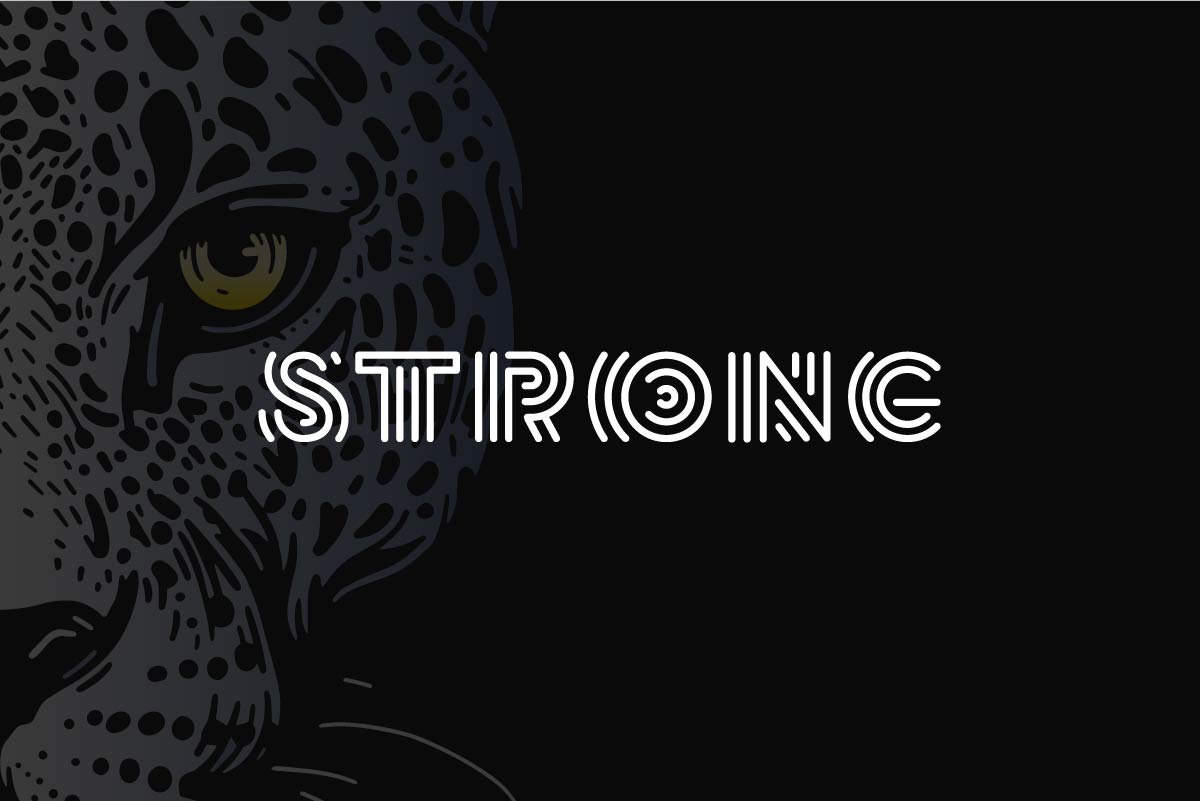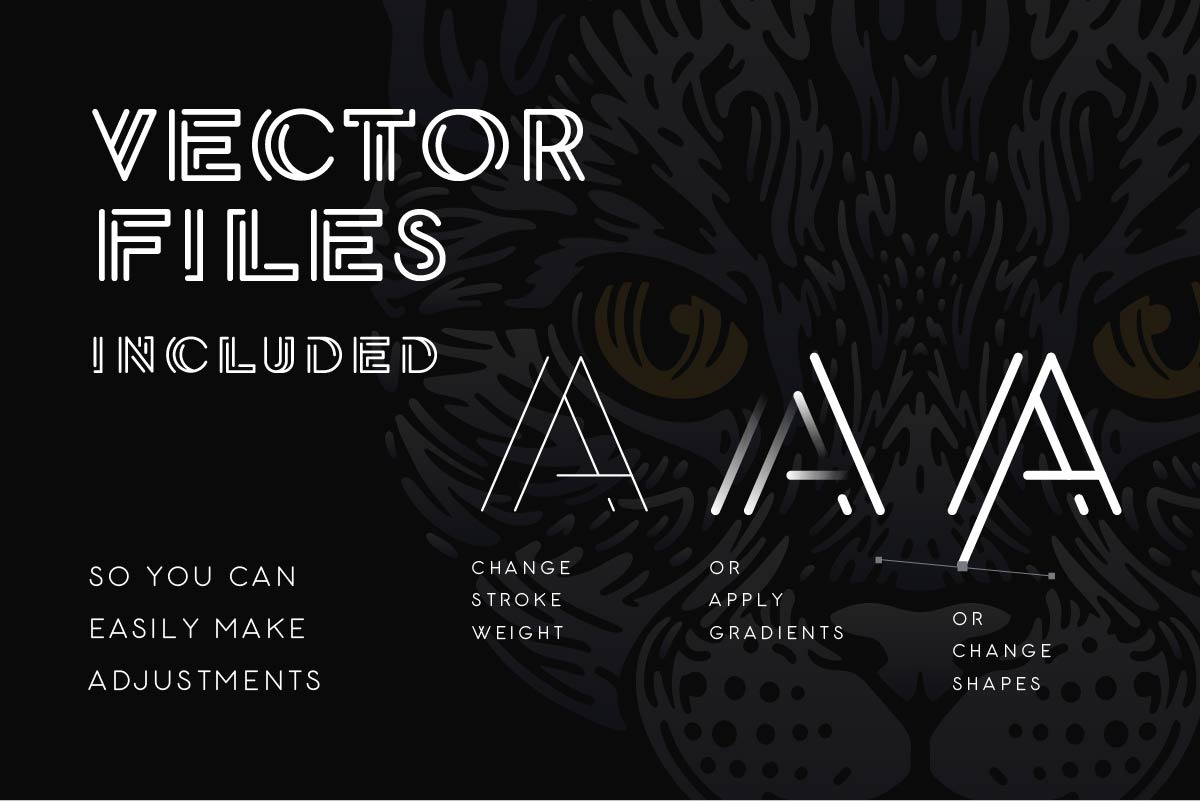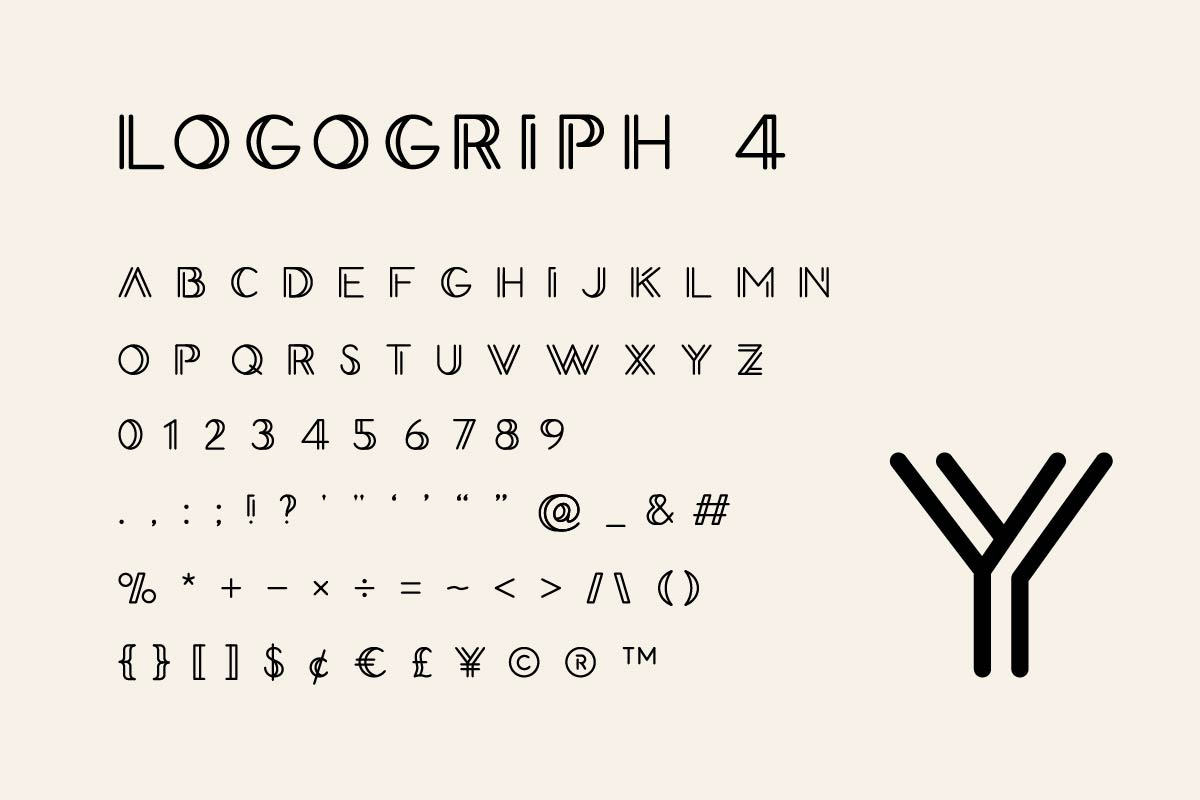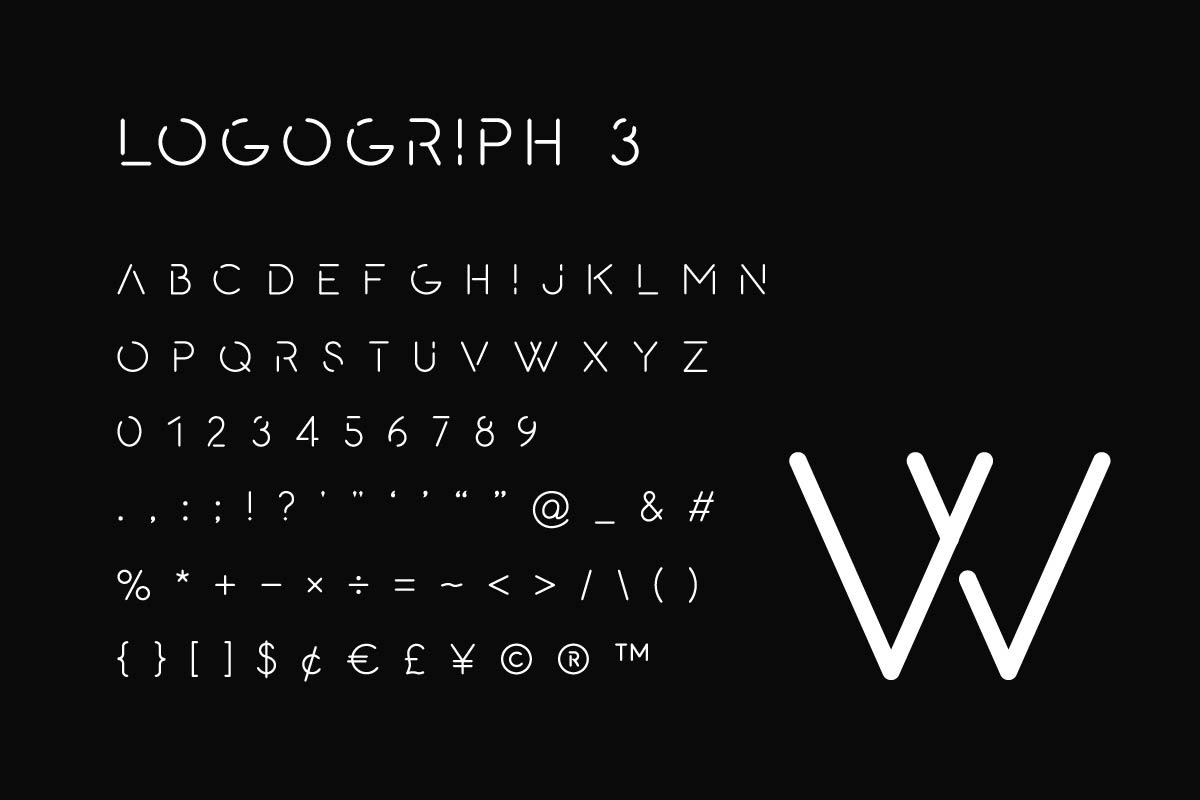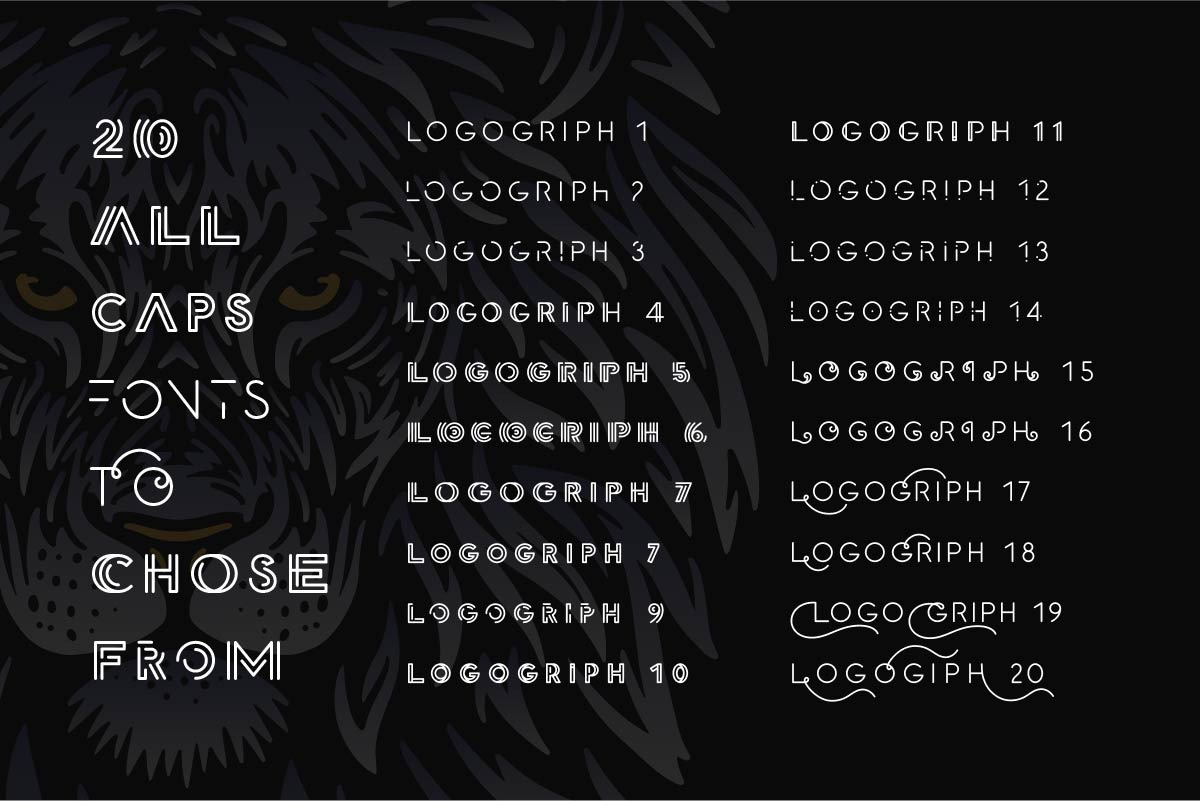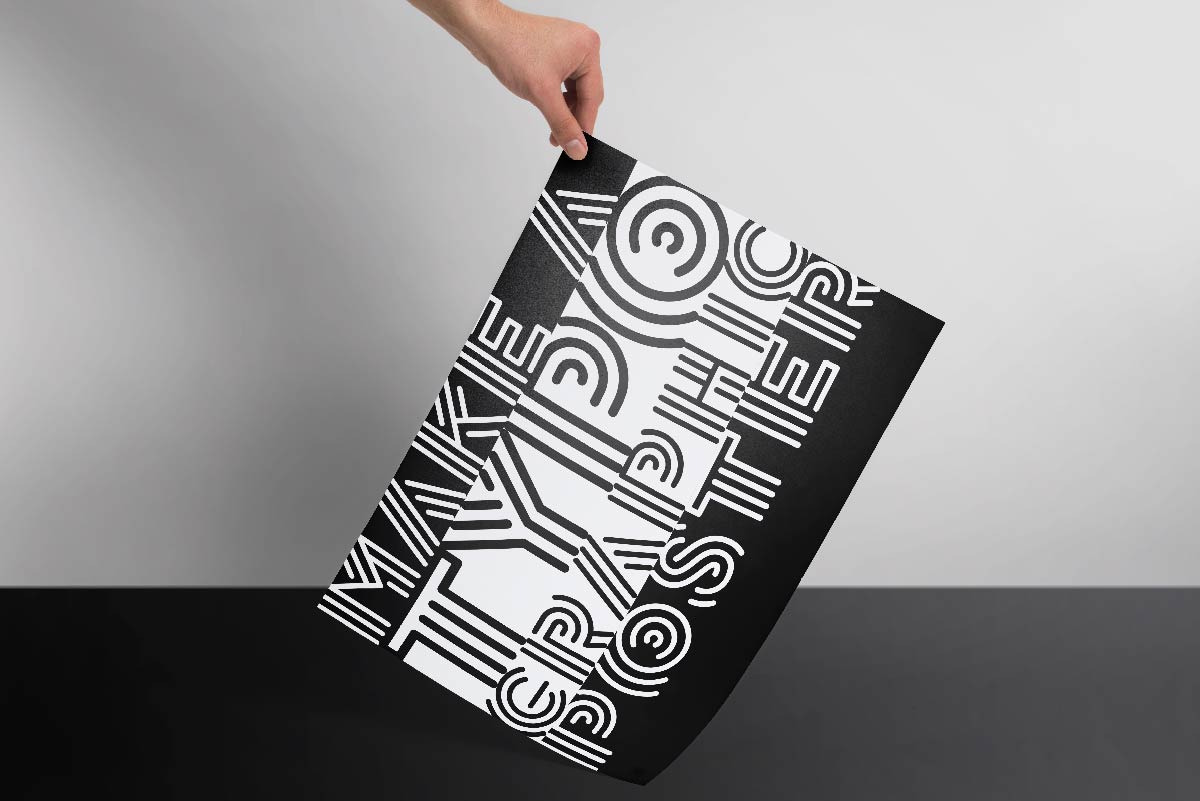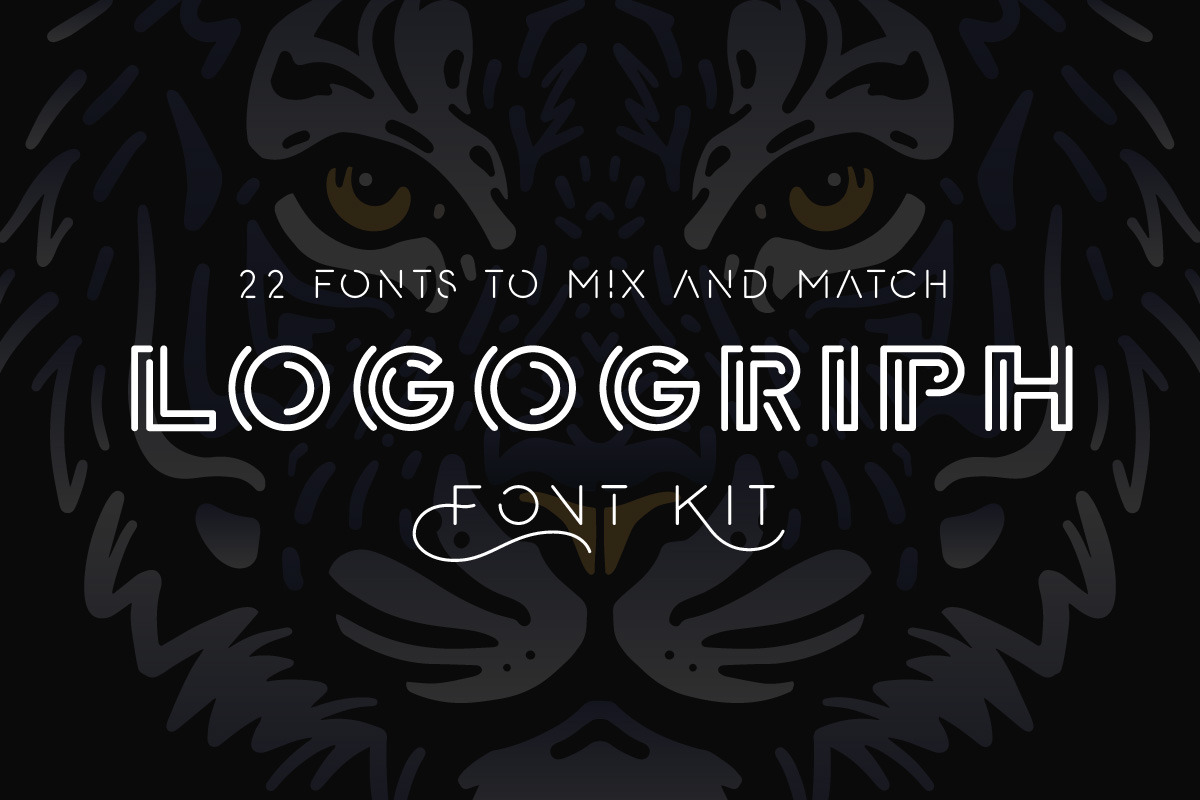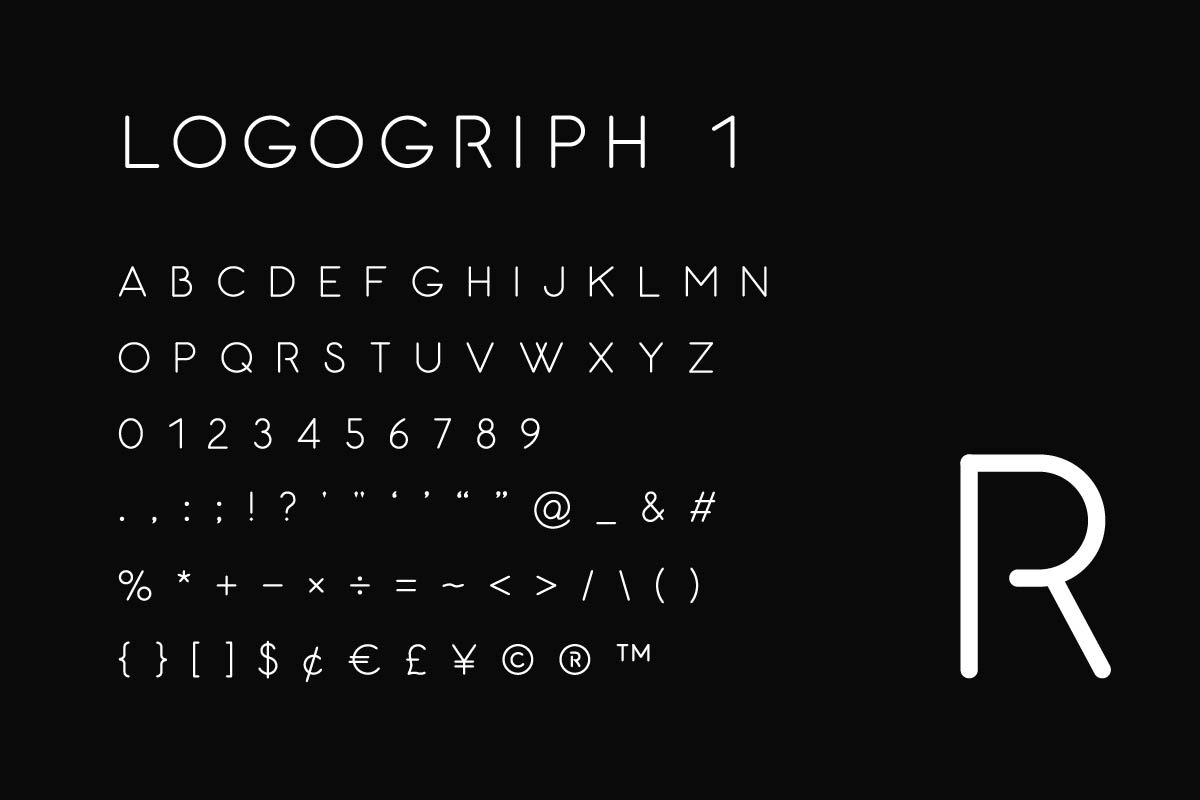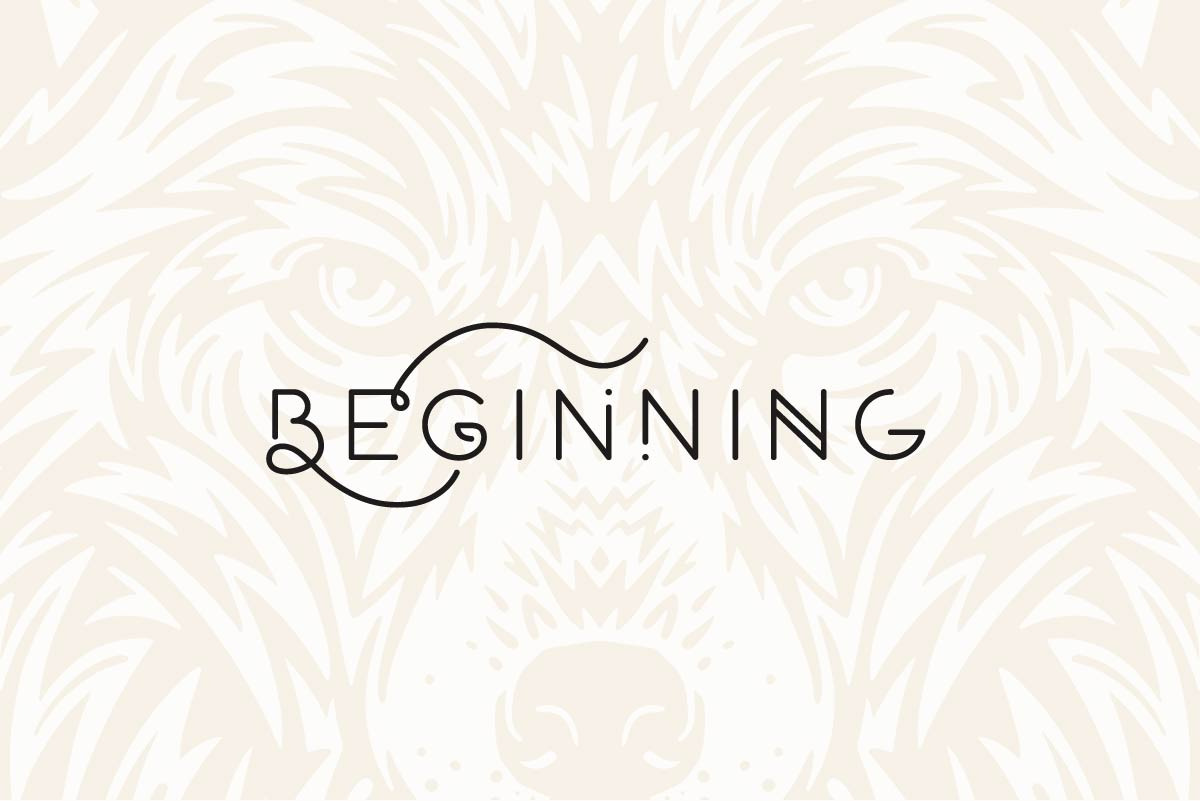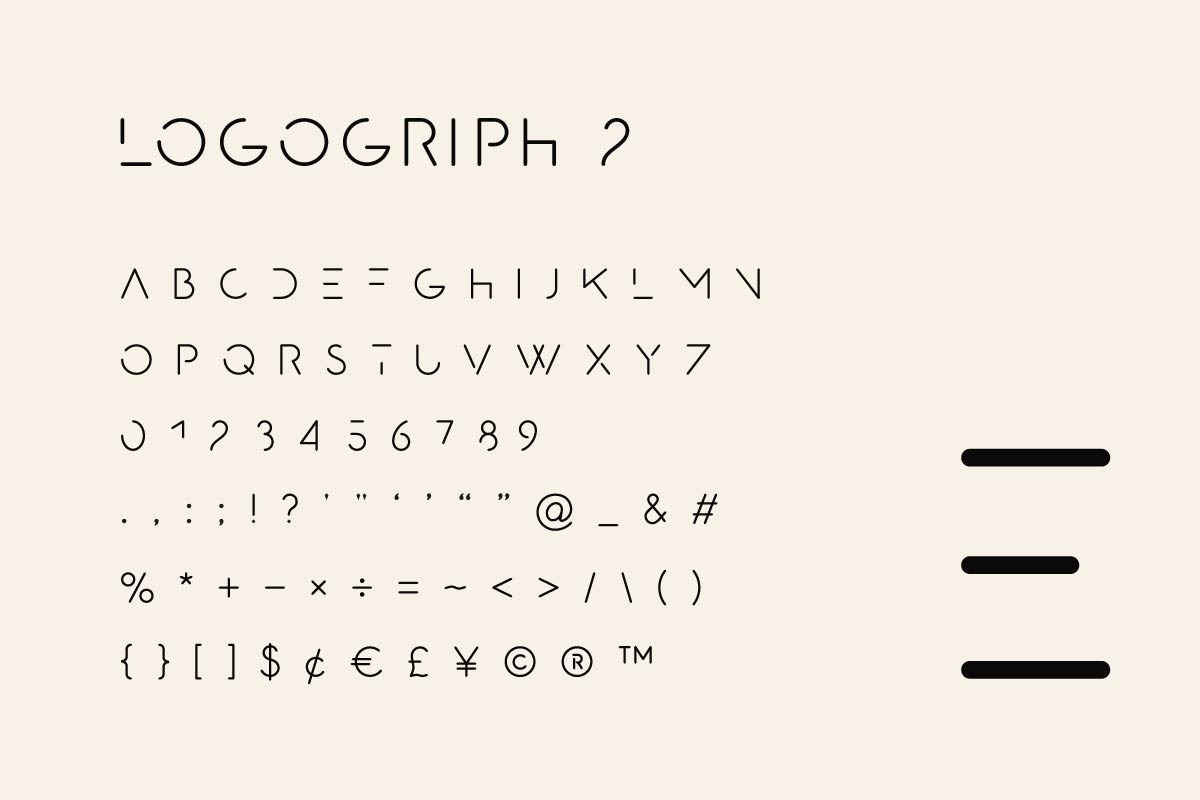
Logogriph - Font Kit Collection of 22 uppercase fonts designed for logos, titles, taglines, posters, quotes, headlines, invitations, and more. Mix and match letters to create unique looking words. In this downloadable package, you will find - 22 Logogriph fonts (OTF, TTF, WOFF). - vector files with all letters (AI, EPS, PDF) All fonts include basic uppercase letters and punctations. Enjoy creating! | Logogriph - Font Kit | Pencil Twist